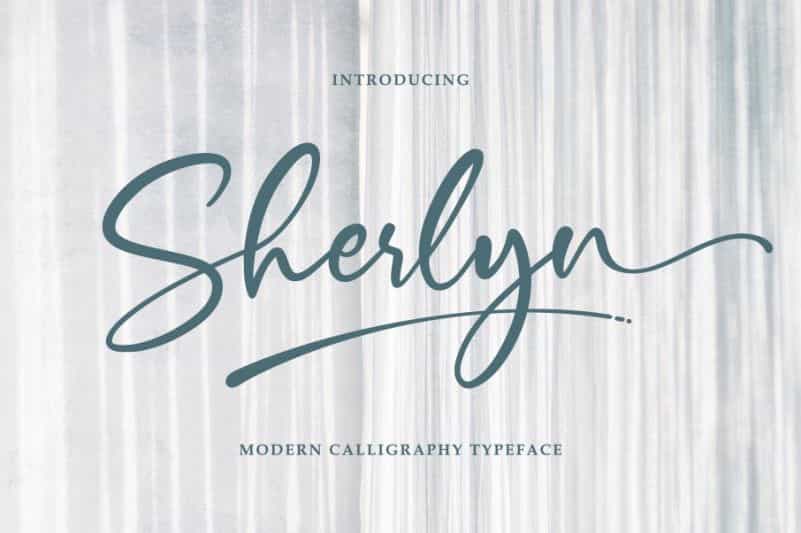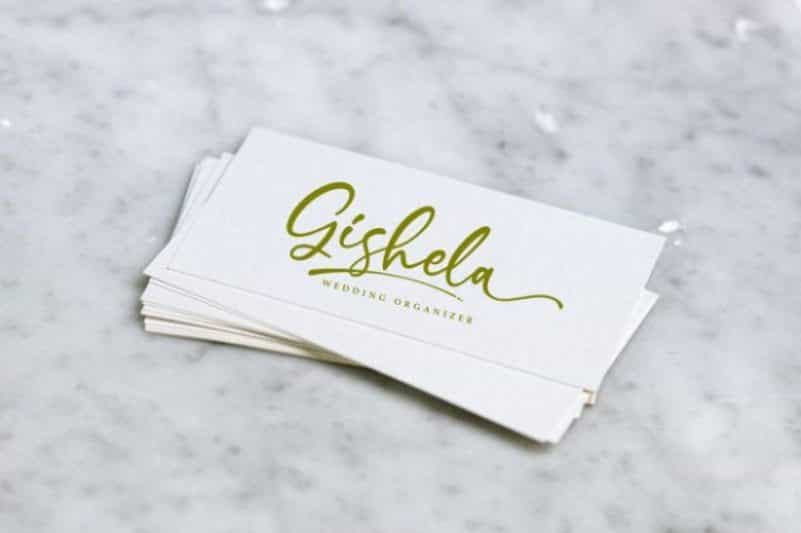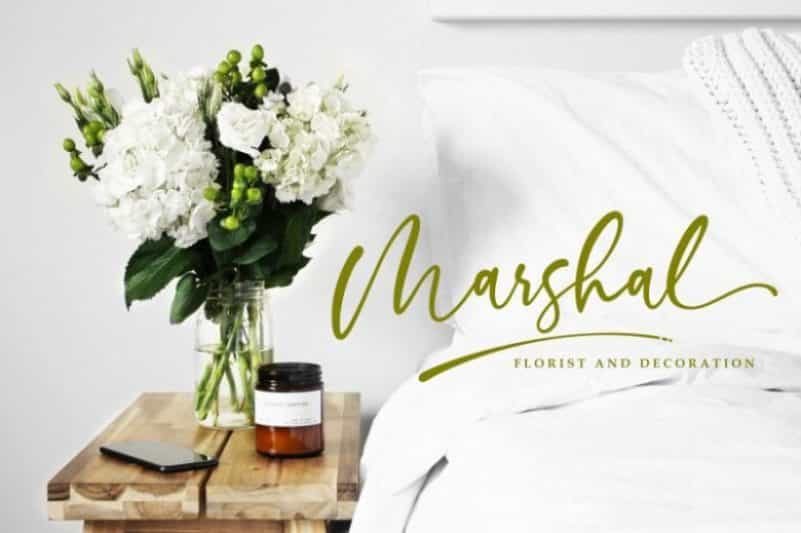
Sherlyn is a lovely and slightly calligraphic looking font with a fantastic feel. Has uppercase, lowercase, numbers, standard ligatures and an extra swash to let you personalize your designs. Great for Logotype, Letter Head, Poster, Apparel Design, Label, etc.